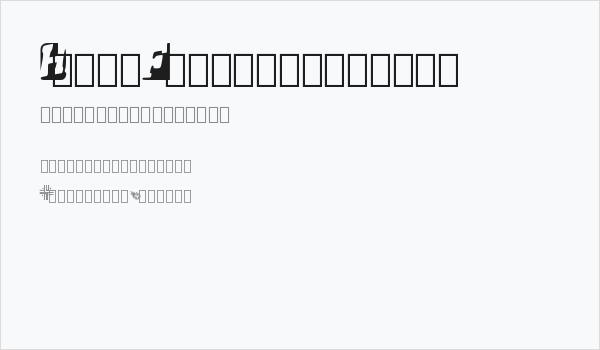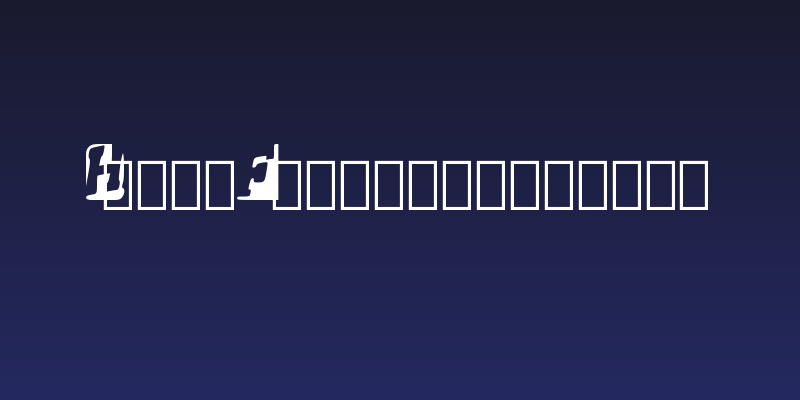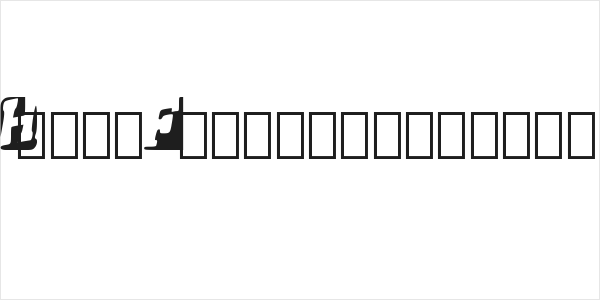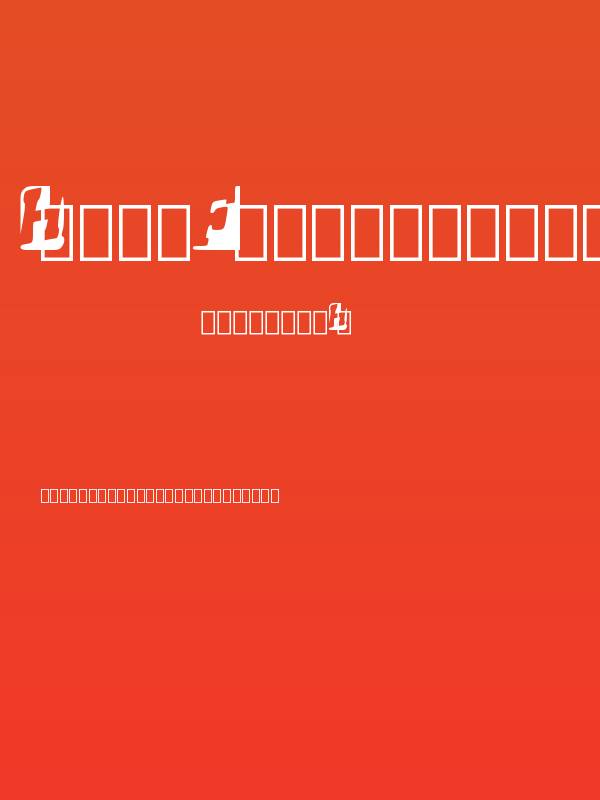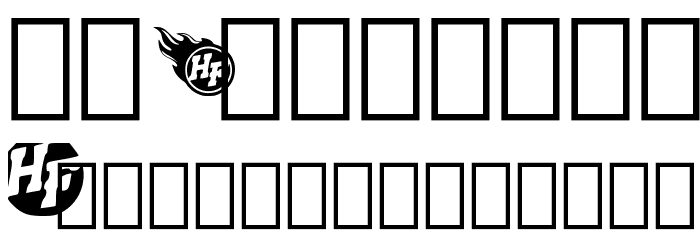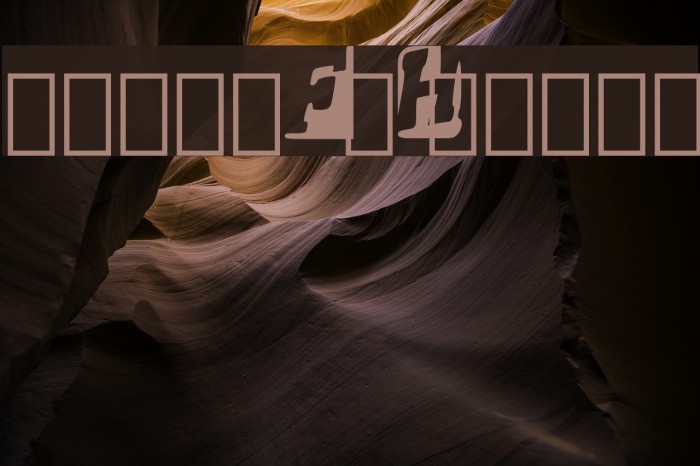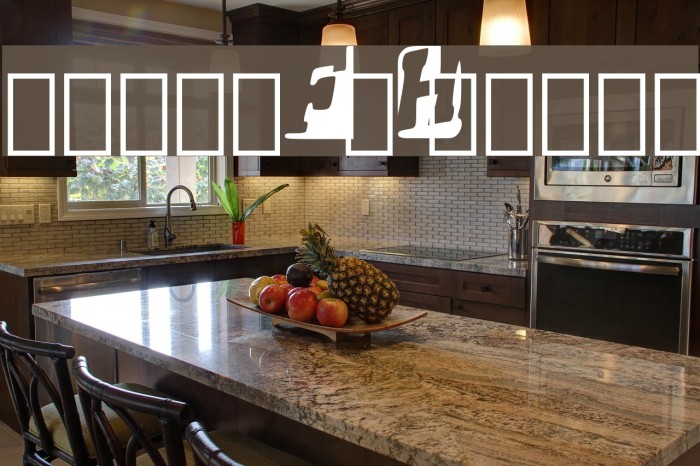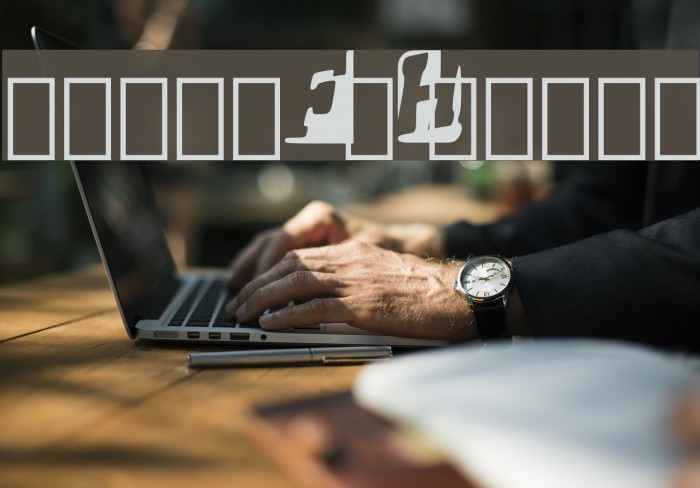
Holy Family Regular Font
Holy Family Regular Description
The font features a bold, decorative style with unique embellishments and a modern flair.
| Use Case | Logos, Headlines |
| Proposed Projects | Logos, headlines, branding materials. |